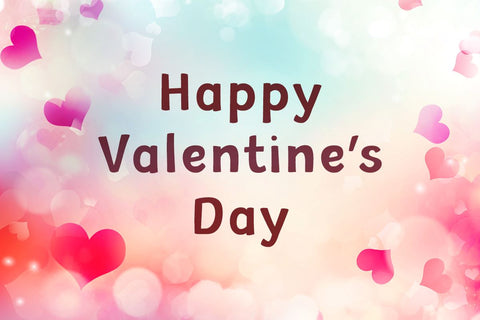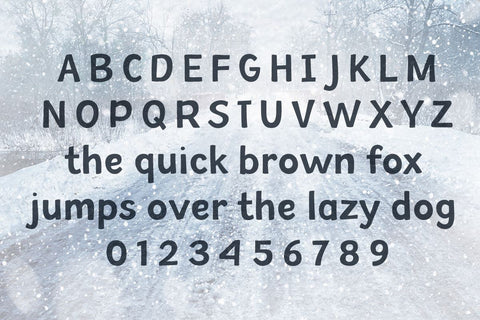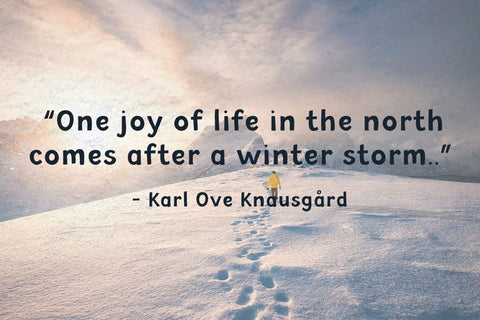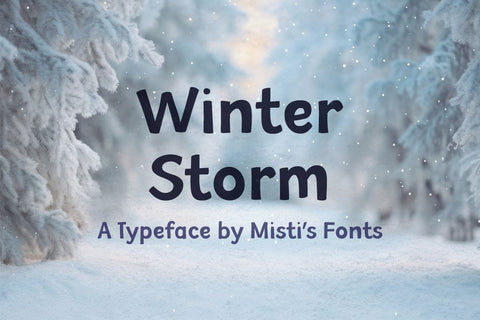
Winter Storm
Winter Storm is a stunningly whimsical sans-serif typeface that is sure to enchant your audience. This font is perfect for those who want to add a little bit of magic and wonder to their designs. The playful and flowing curves of the letters evoke a sense of fun and excitement, while the clean and modern lines ensure that the font remains easy to read.